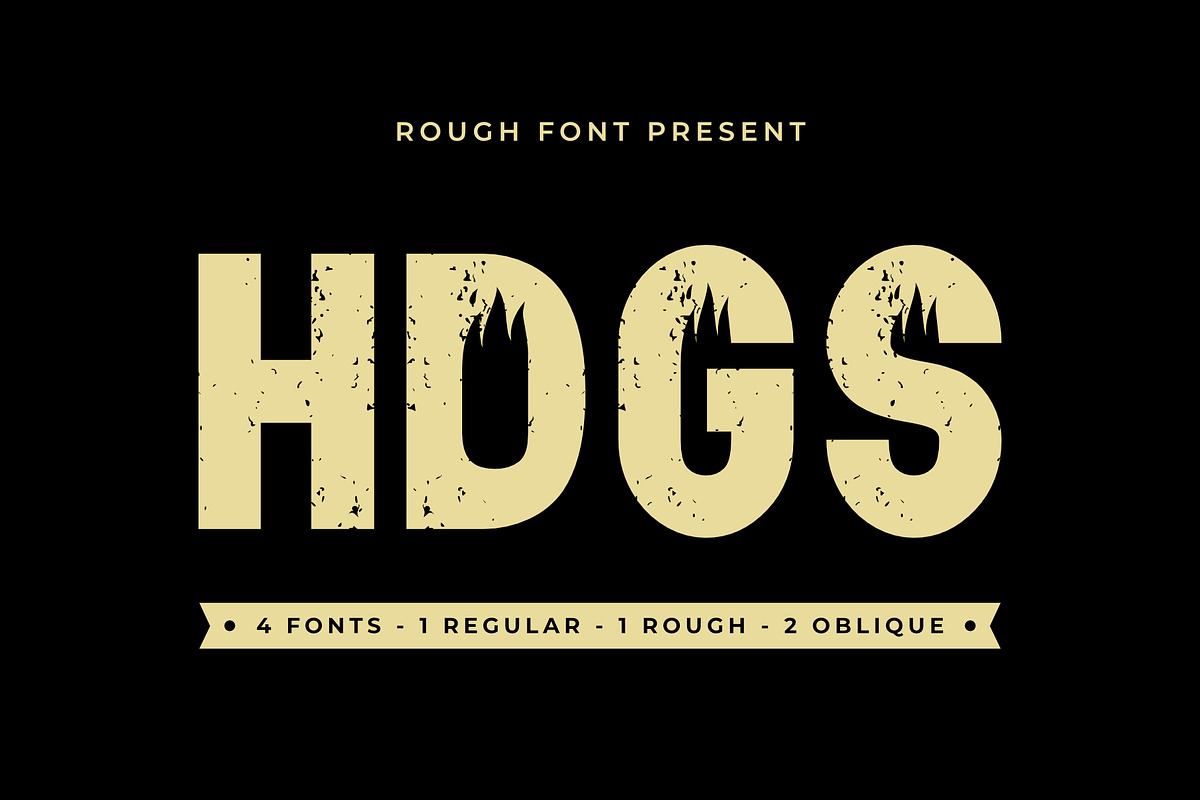
The Sans Serif Fonts Bold Hotdogs Free Download is a striking, modern font designed to make a bold statement in any project. With its clean lines and powerful presence, this font is perfect for headlines, logos, and posters that need to stand out. Please note, for commercial use, a license must be purchased. You can download it for free for testing purposes.
With its strong and contemporary design, the Sans Serif Fonts Bold Hotdogs Free Download is ideal for creating impactful, attention-grabbing designs. Whether you're working on branding, advertising materials, or digital content, this font adds a bold and modern touch to your work.